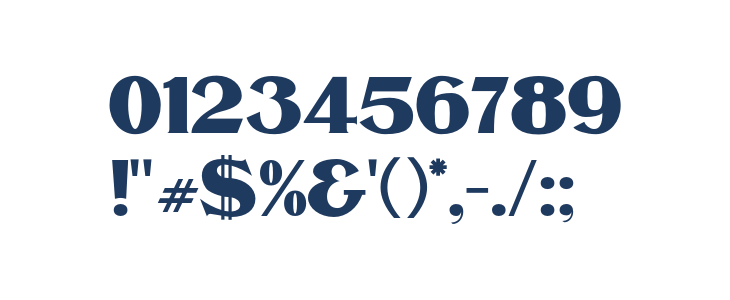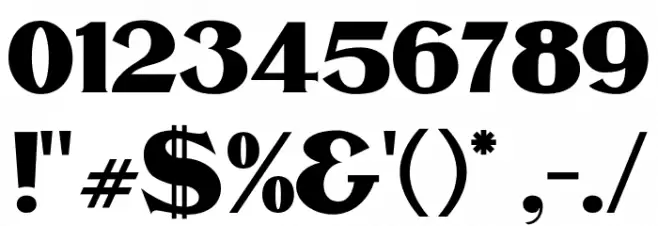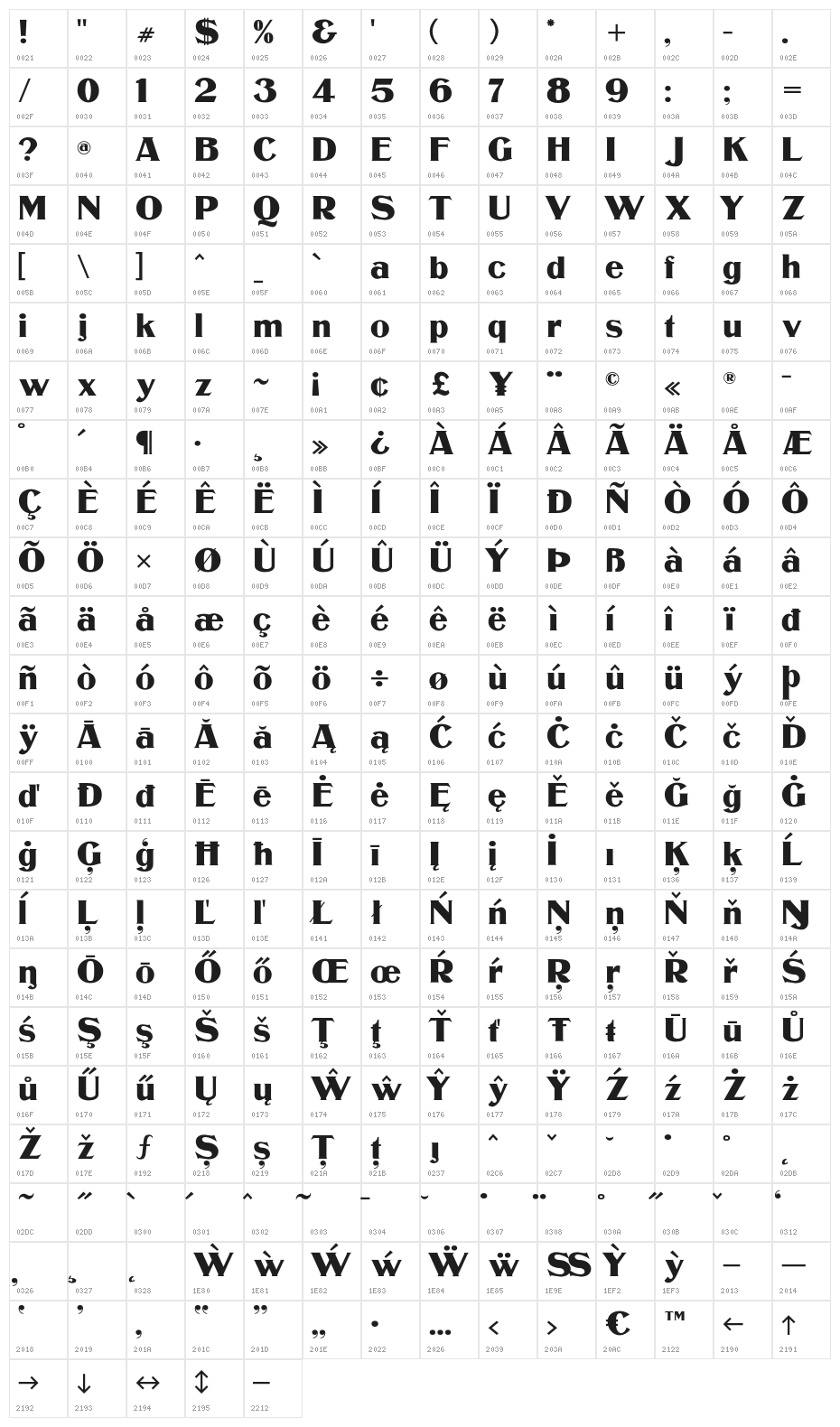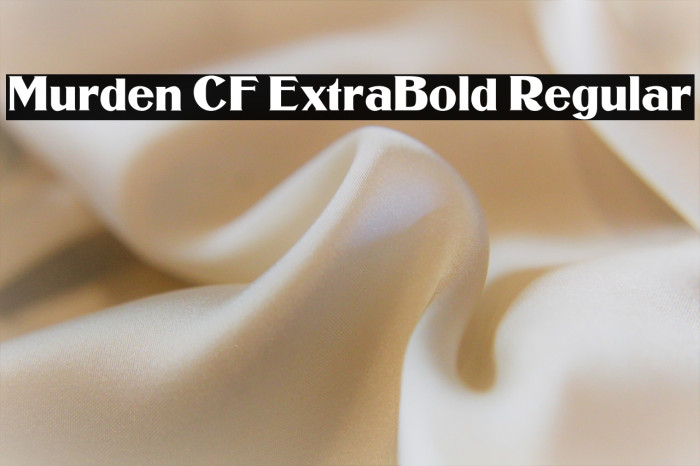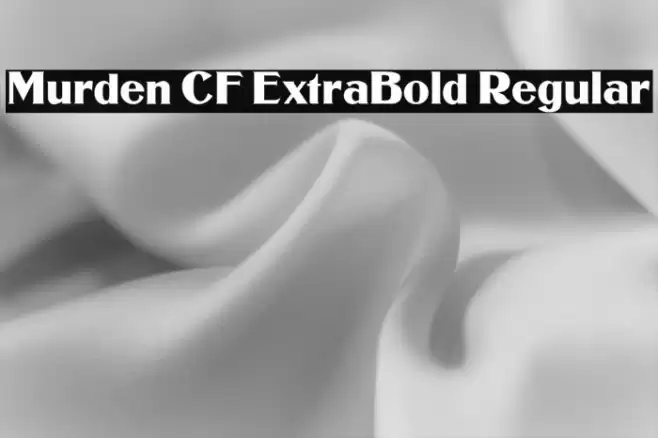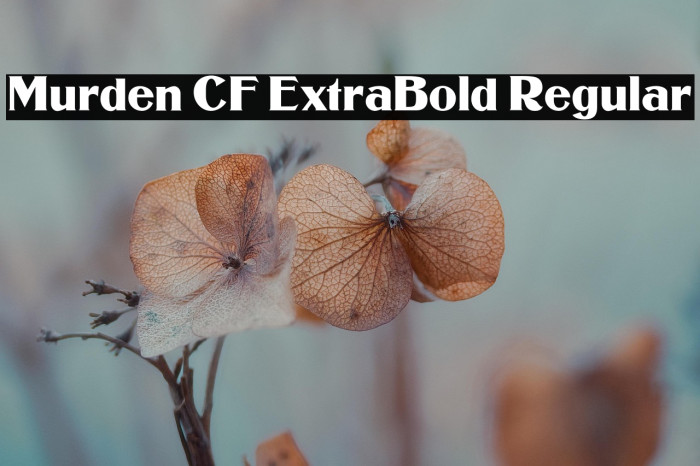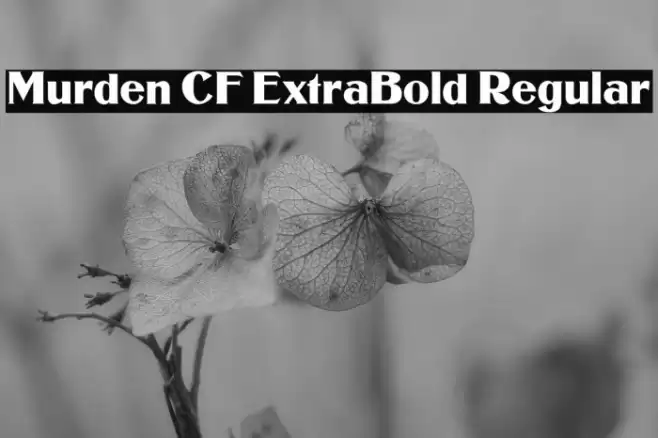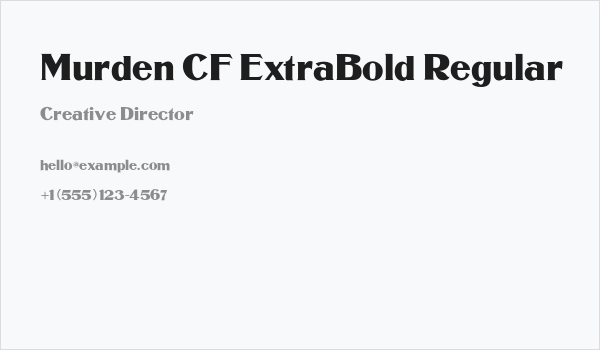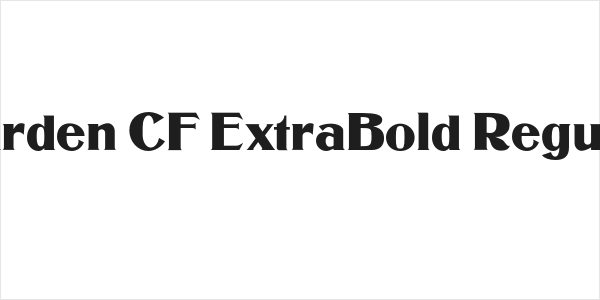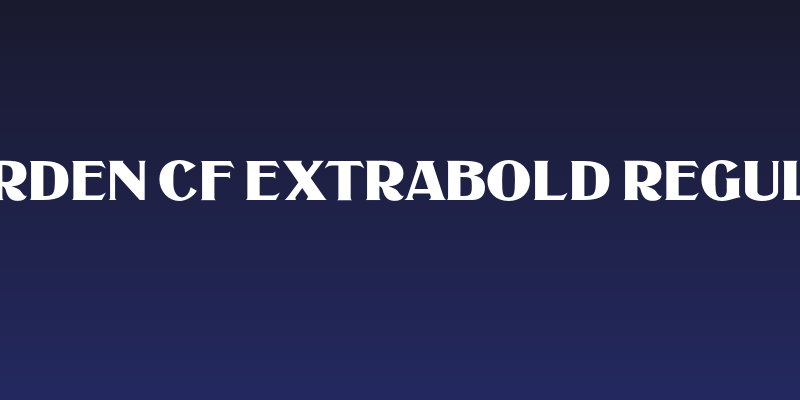
Murden CF ExtraBold Regular Font
Murden CF ExtraBold Regular Description
This font features a bold and commanding presence with its thick strokes and sharp serifs. The uppercase letters are robust and impactful, making them ideal for attention-grabbing headlines. The lowercase letters maintain a consistent weight, providing a harmonious balance between the characters. The numerals are equally bold, ensuring clarity and readability. Special characters are designed with the same boldness, making them stand out effectively. Overall, the font exudes a sense of strength and authority, suitable for projects that require a strong visual impact.